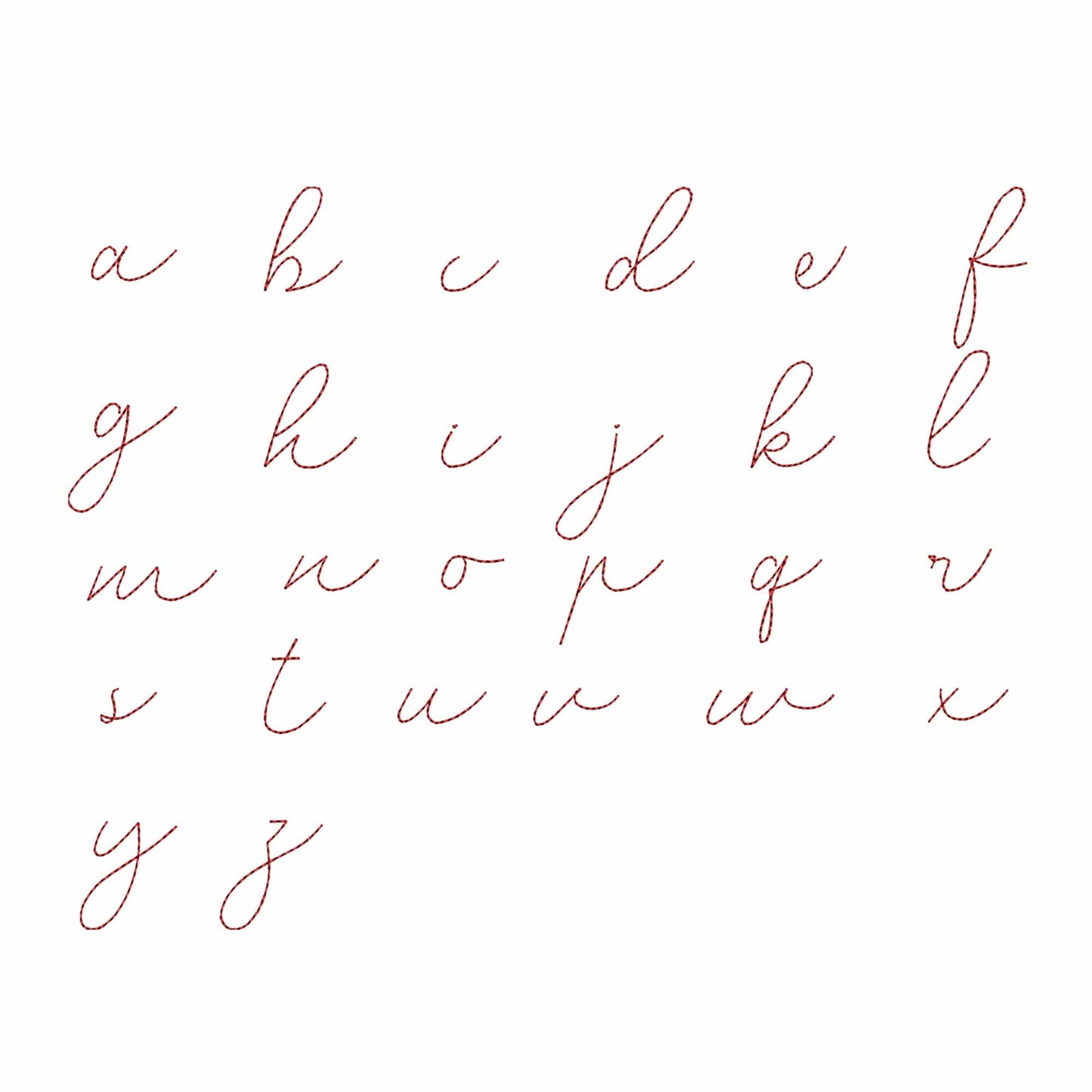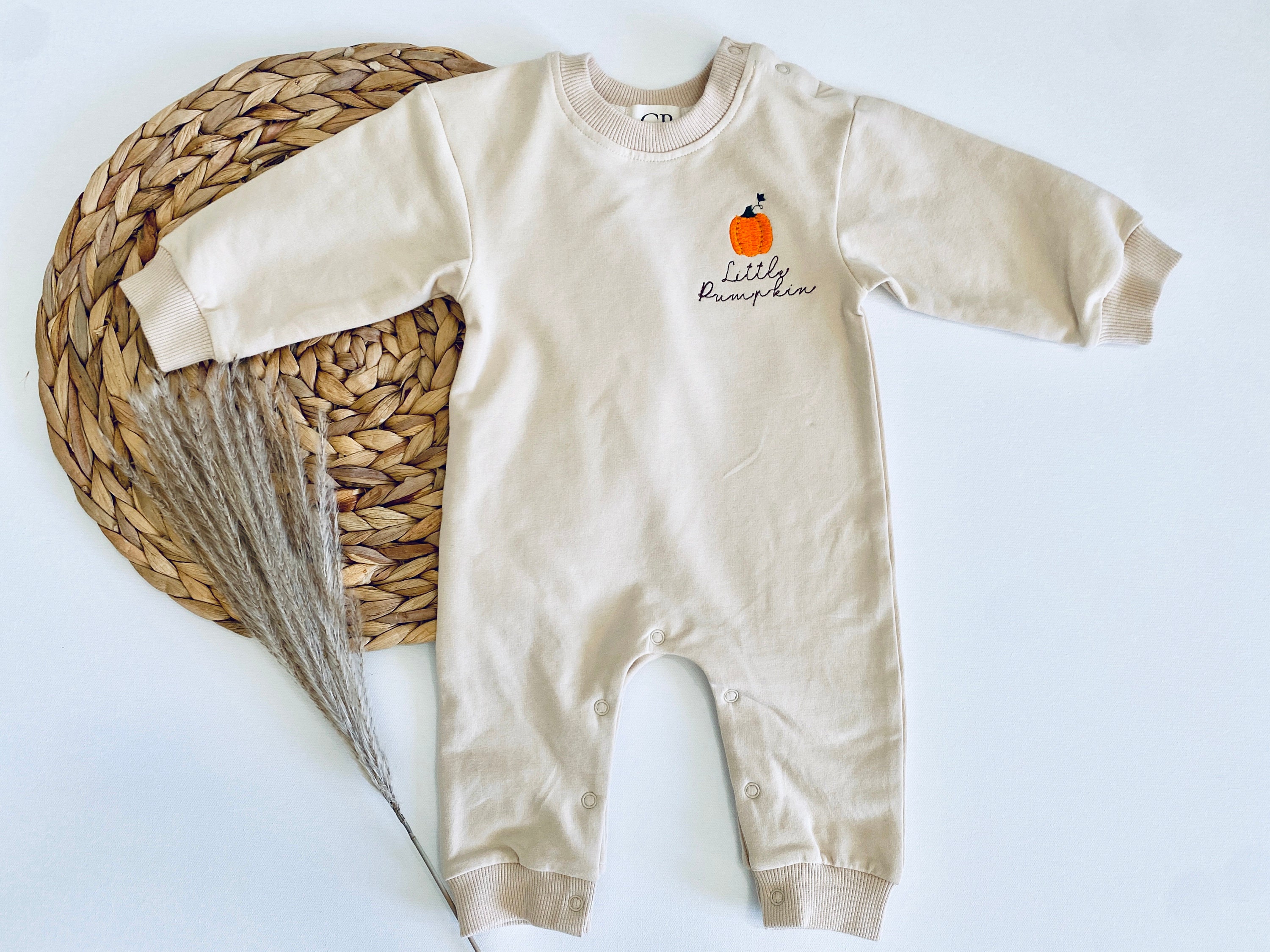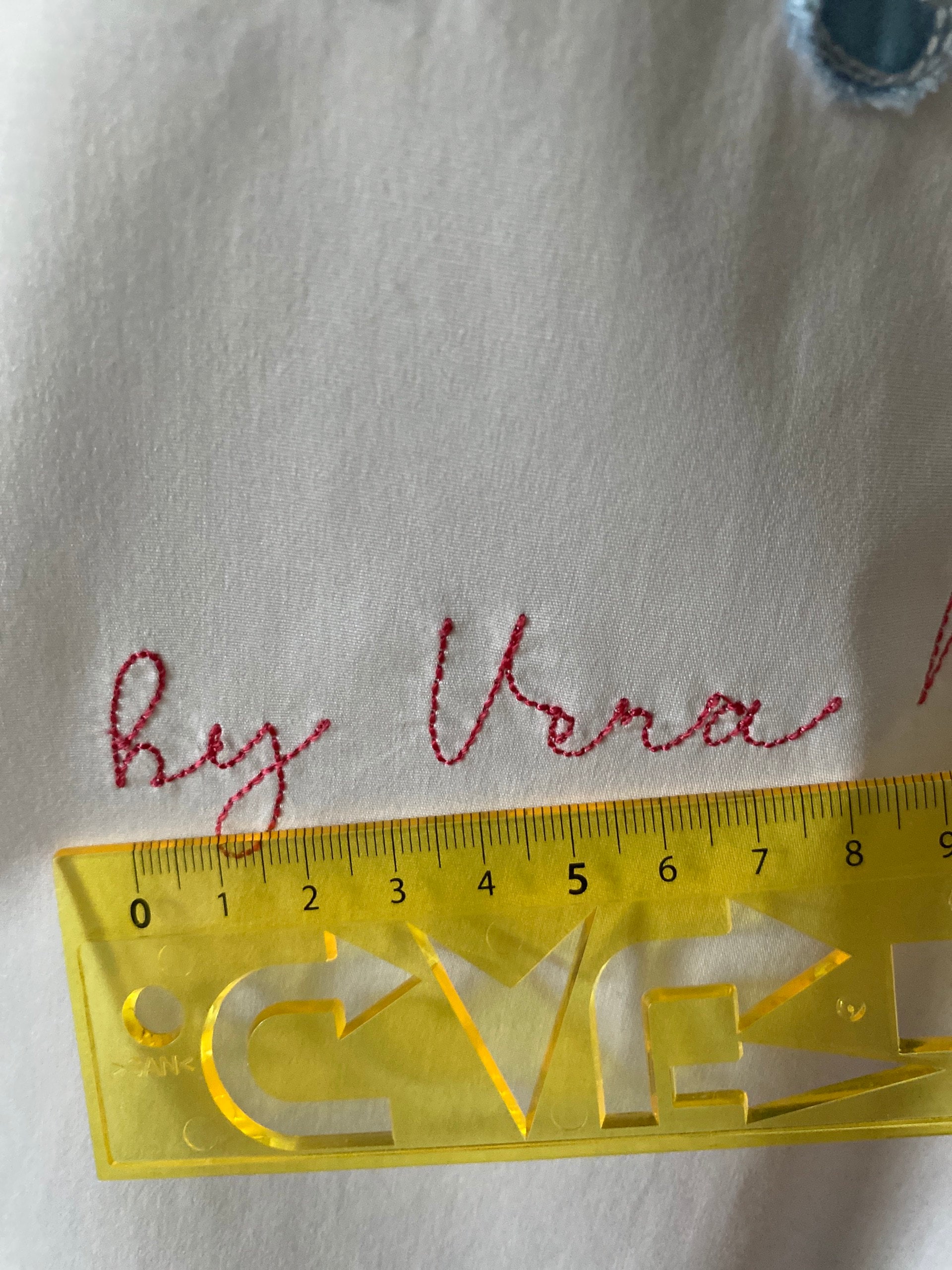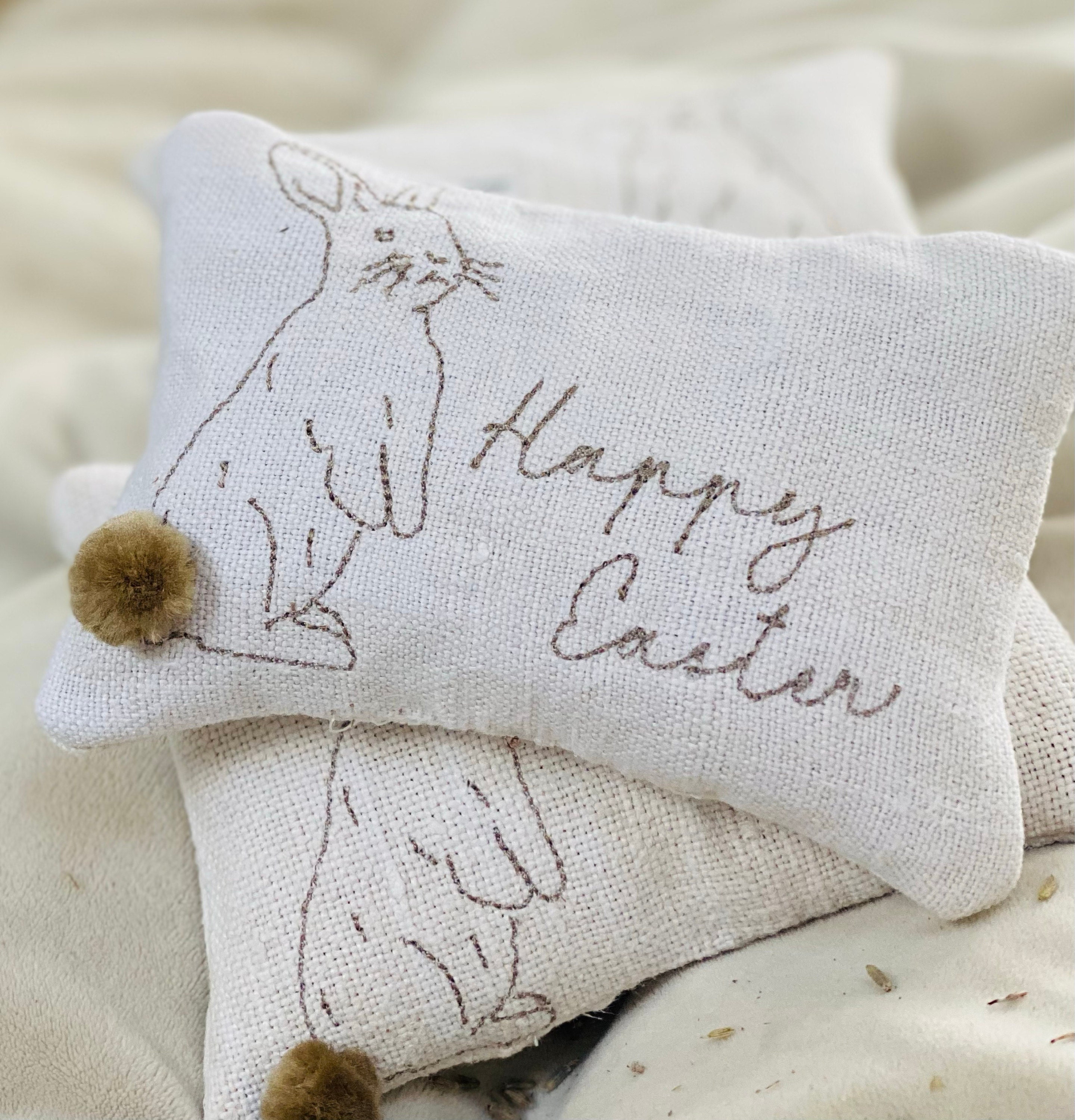
Marlena - Bean stitch Embroidery font
This bean stitch machine embroidery font works well for mini monograms, baby items, towels, labels, and vintage-style personalized embroidery.
A useful digital download for makers who want small script lettering with a classic stitched texture.